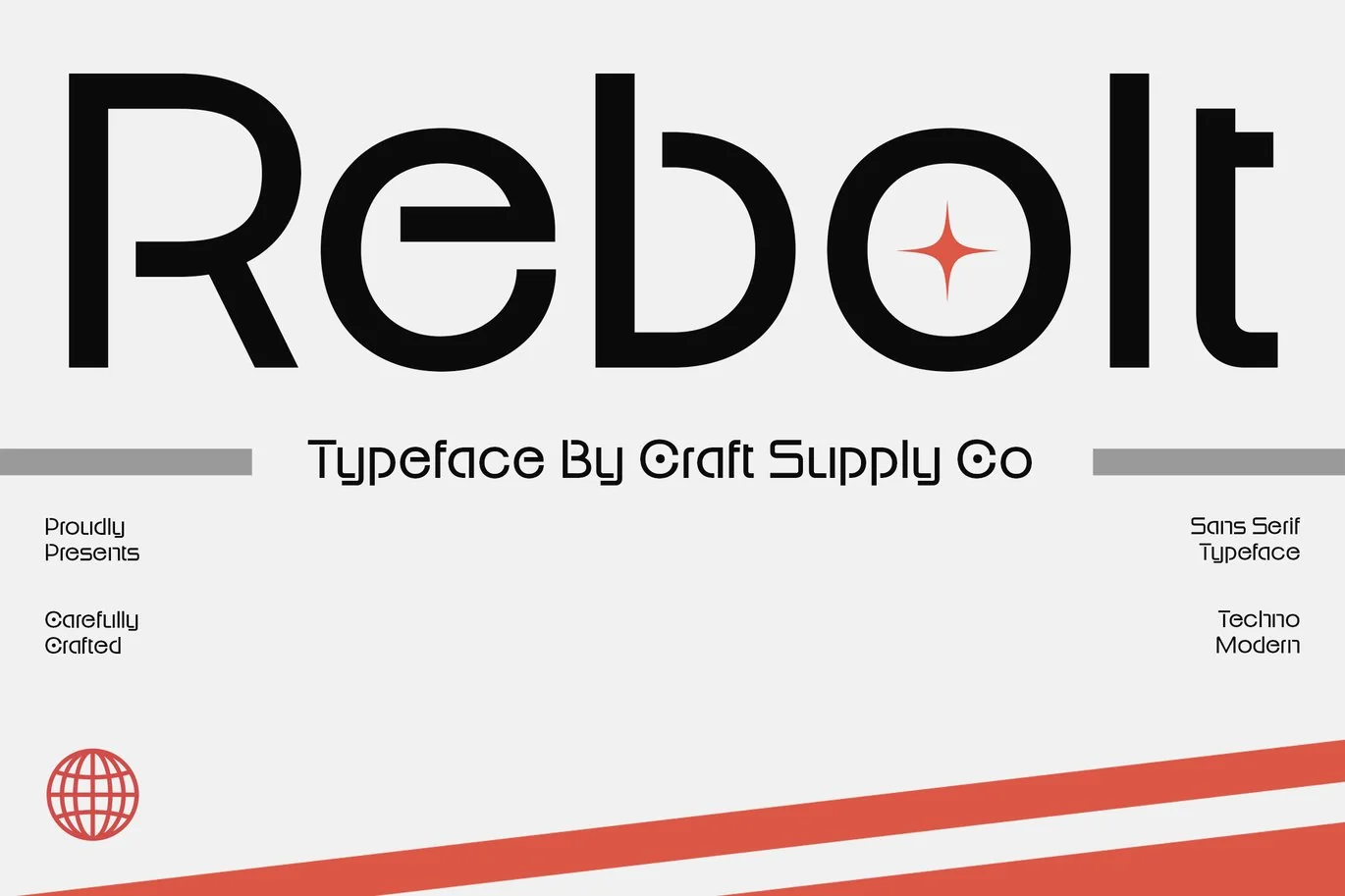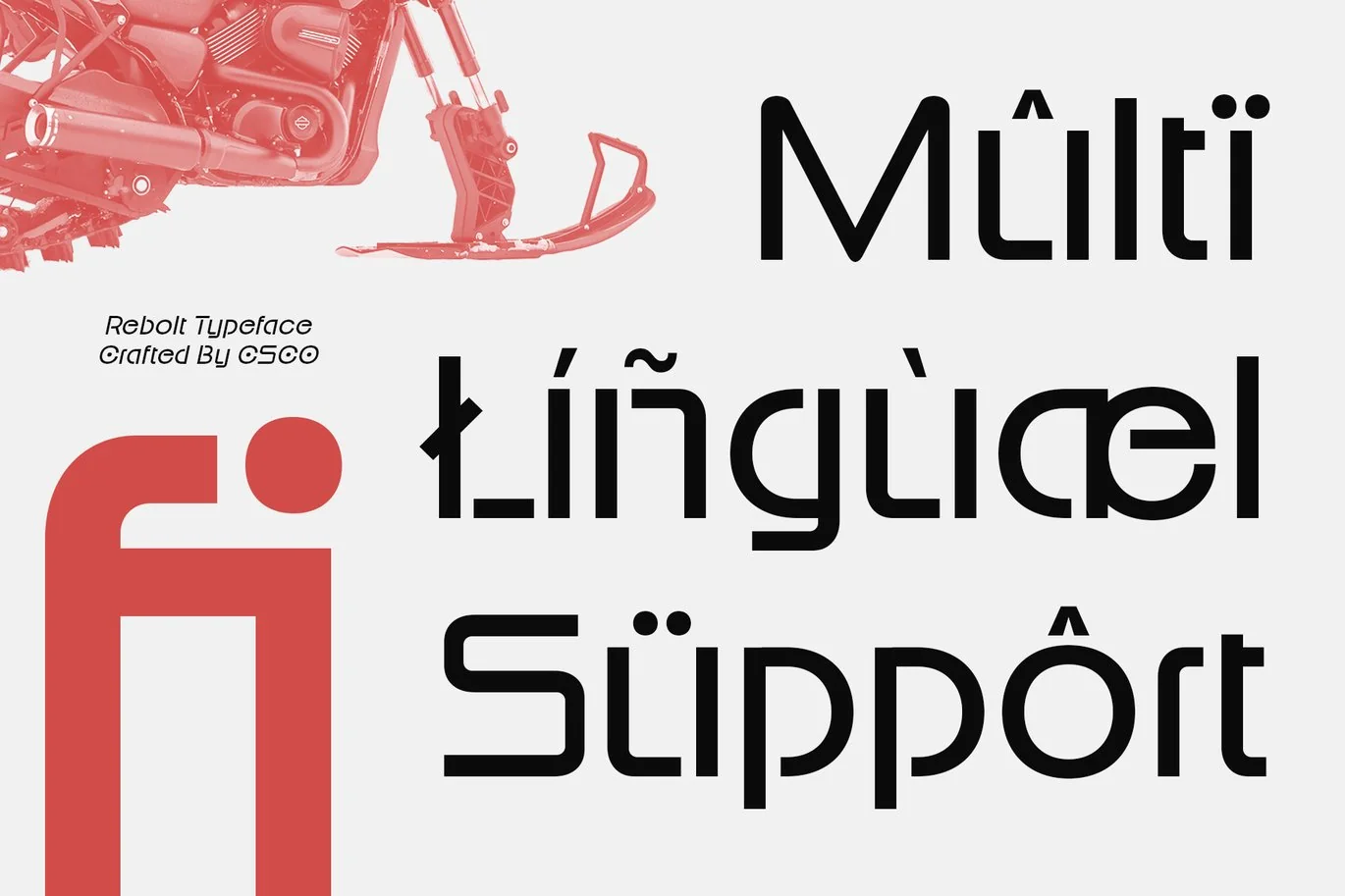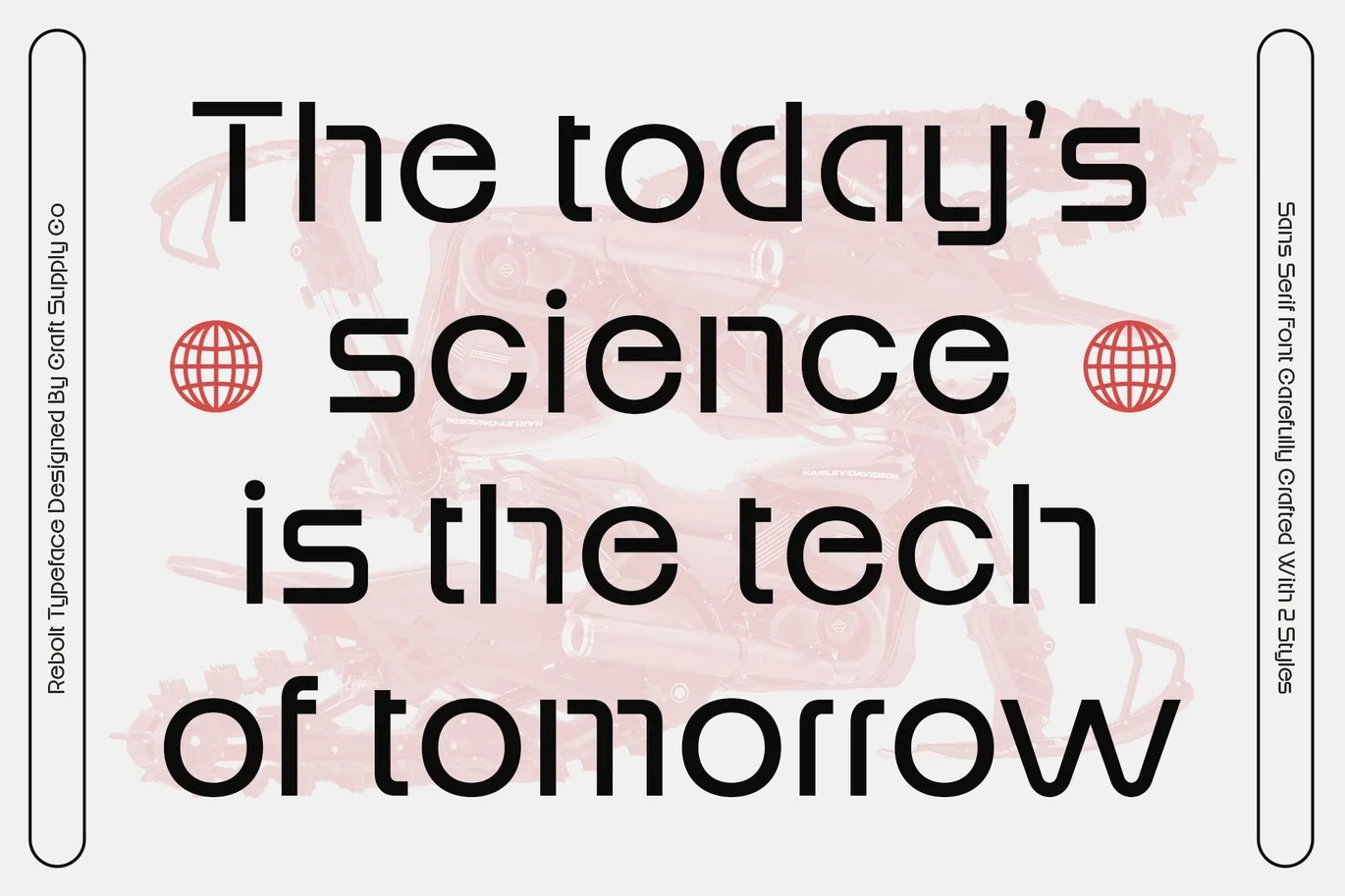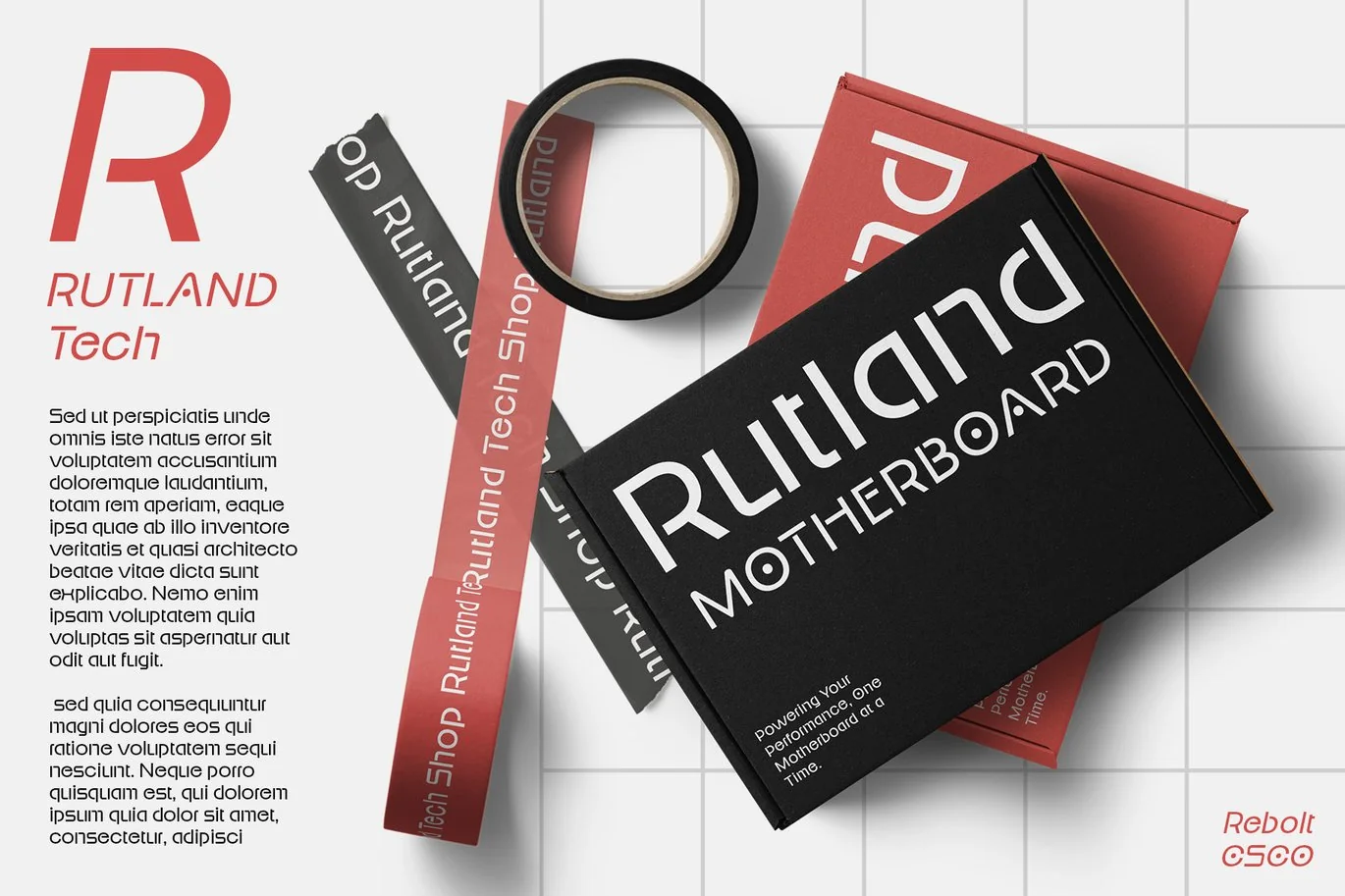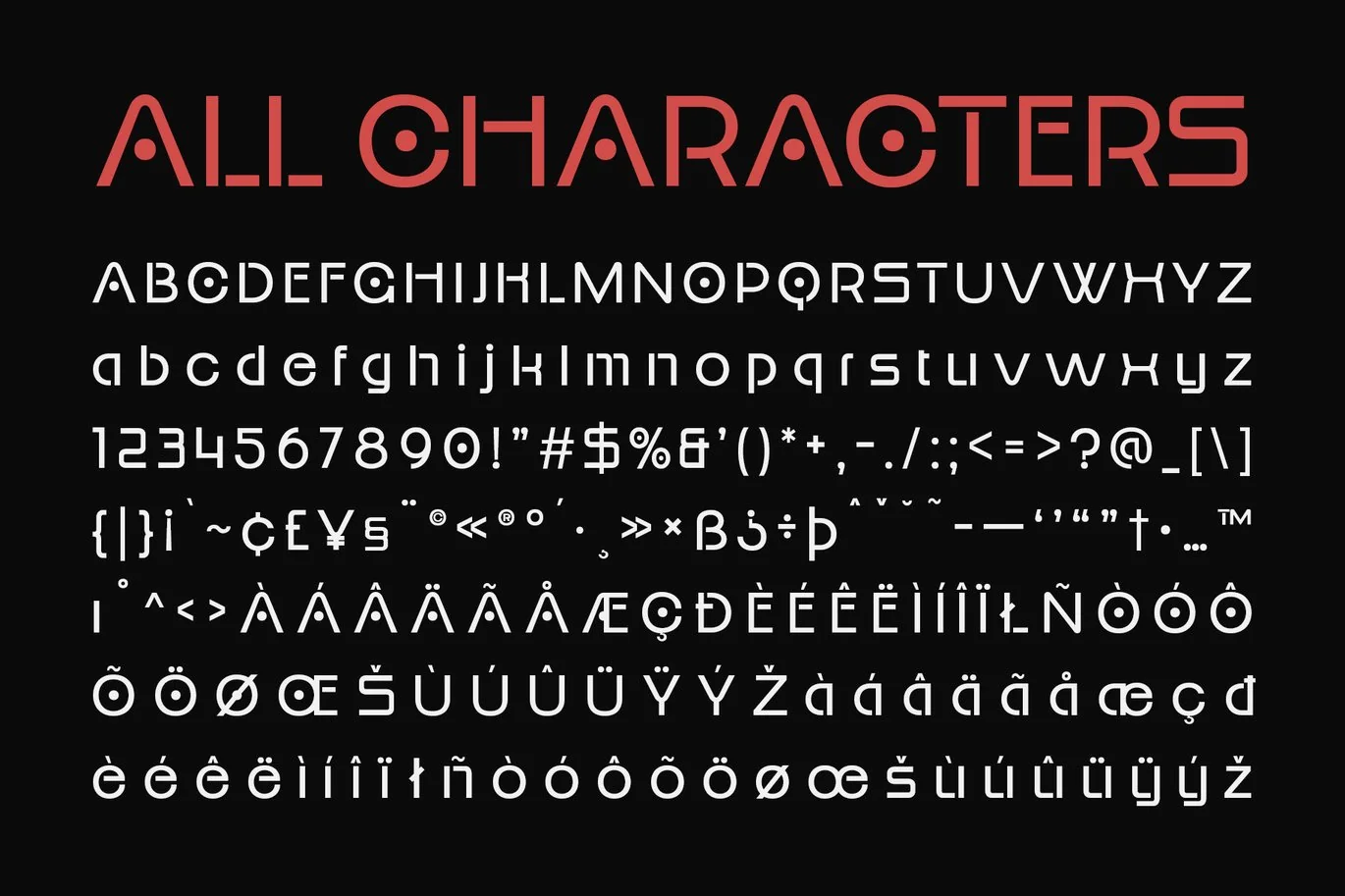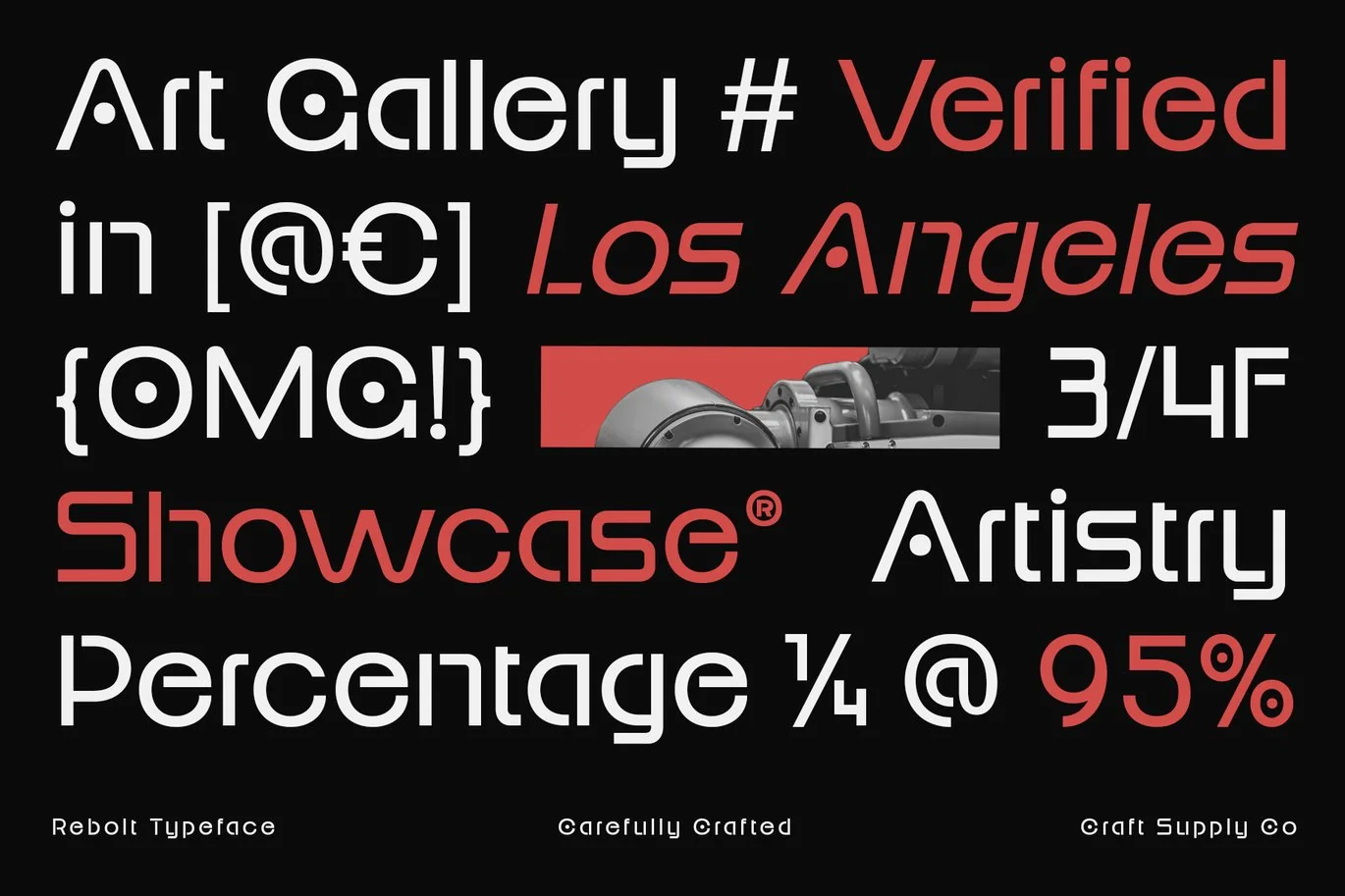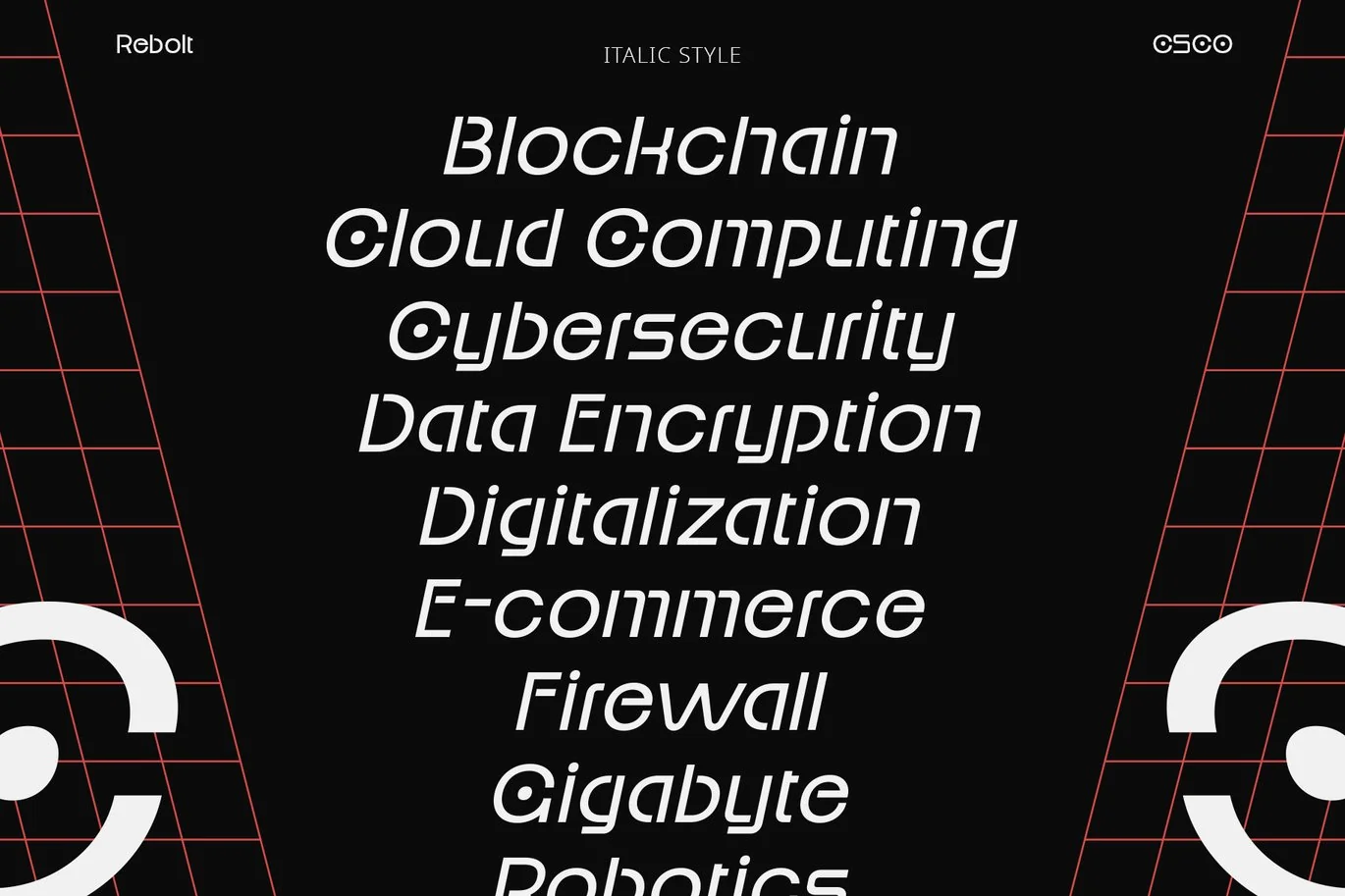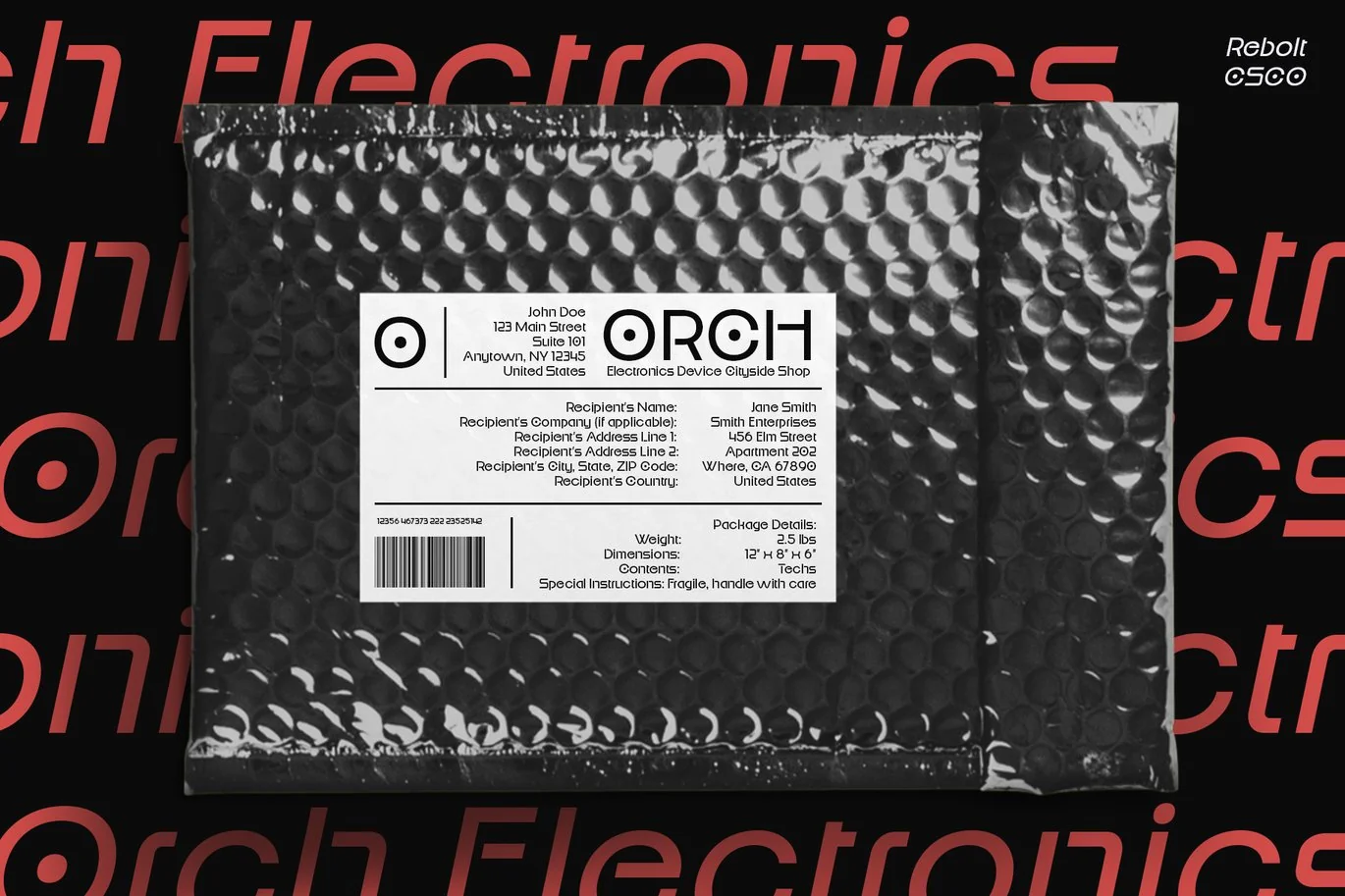
Rebolt – Futuristic Font
Rebolt – Futuristic Font: Inspired by Tomorrow
Innovative Futuristic Design
Rebolt Font is an innovative modern sans-serif typeface that embodies the spirit of the future. Its sleek and futuristic design draws inspiration from technology and innovation, making it perfect for projects that require a cutting-edge look.
Inspired by the Future
Drawing inspiration from the future, Rebolt Font is designed to convey a sense of progress and advancement. Its clean lines and geometric shapes create a dynamic and forward-thinking appearance that is sure to make a statement.
Perfect for Modern Designs
Rebolt Font is perfect for modern designs that aim to push boundaries and break new ground. Whether used for branding, advertising, or editorial purposes, its futuristic style adds a bold and contemporary touch to any project.
Embrace Tomorrow’s Aesthetics
Embrace the aesthetics of tomorrow with Rebolt Font. Its innovative design and futuristic style make it a versatile choice for projects that demand a forward-looking approach.